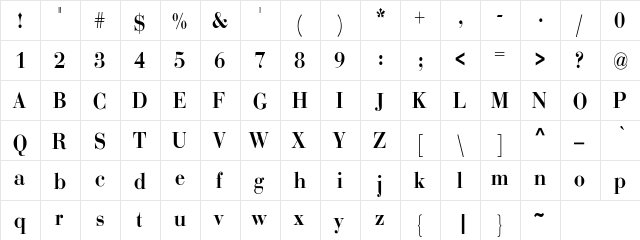
BodoniCnd-Bold Regular Font Preview
BodoniCnd-Bold Regular
BodoniCnd-Bold Regular Font Details
Design Context for BodoniCnd-Bold Typeface
BodoniCnd-Bold offers clean, dependable letterforms without strong stylistic allegiance, making it a practical choice for designers who need flexibility. The heavy weight commands attention and anchors typographic hierarchies.